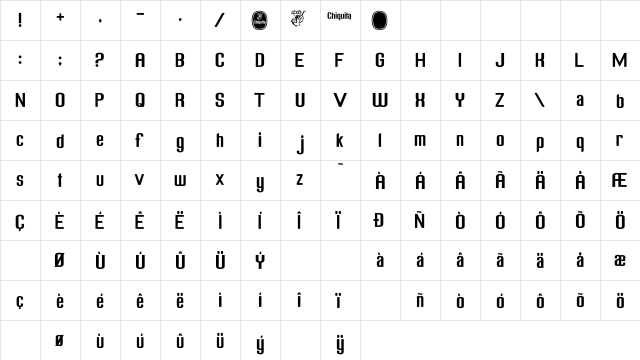
Chiquita Normal
Design Context for Chiquita Typeface
Chiquita offers clean, dependable letterforms without strong stylistic allegiance, making it a practical choice for designers who need flexibility.